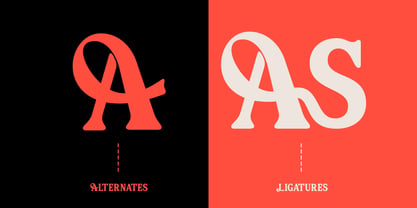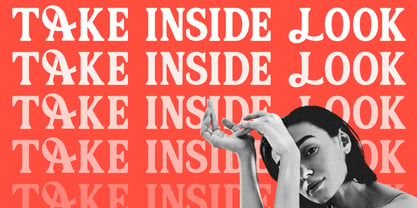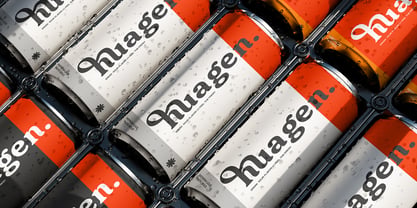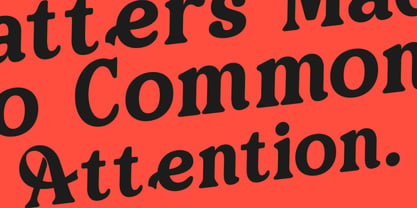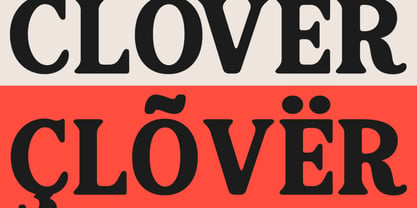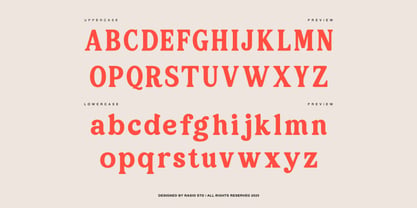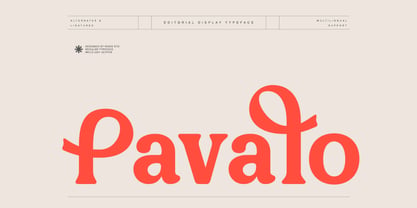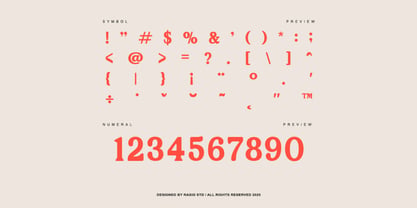
Pavalo
von Rasio Studio
Die Schriftfamilie Pavalo wurde von Fajar Indra entworfen und von Rasio Studio veröffentlicht. Pavalo enthält 1 Stile. Mehr über diese Familie
Pavalo is a bold editorial display typeface with over 240 glyphs, featuring unique alternates and expressive ligatures. Designed for visual impact, this serif font blends vintage charm with modern sophistication perfect for branding, editorial layouts, packaging, and creative projects. Pavalo is an excellent choice for designers looking to create high-impact editorial visuals, brand identities, or artistic layouts. Its combination of modern structure and expressive forms makes it ideal for magazine titles, creative packaging, social media graphics, boutique branding, and elegant posters.